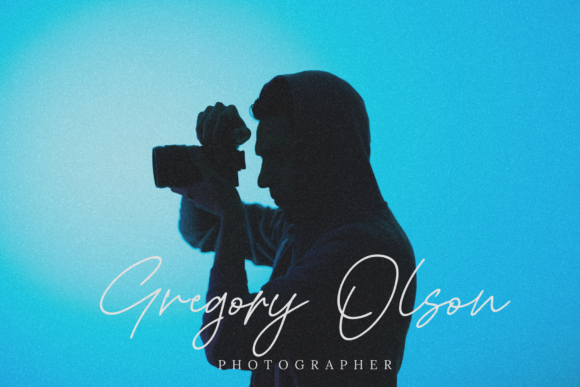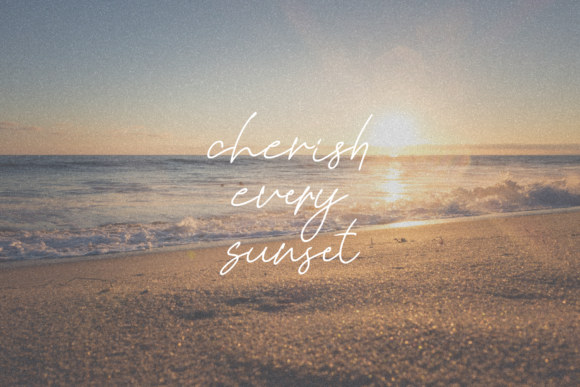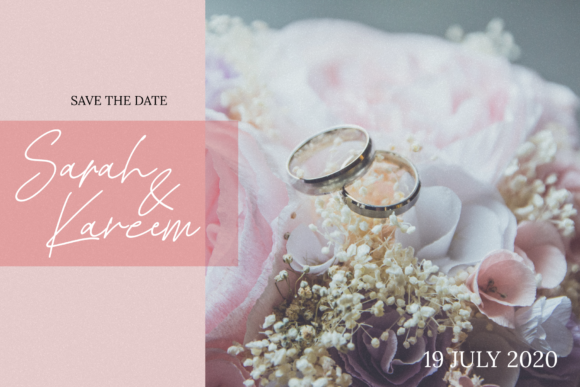
Introduction to Kadung Tresno Font
Have you ever been in the middle of a creative project, staring at a blank page, trying to come up with the perfect design element to bring it all together? You’ve tried every font, every color combination, but nothing seems to be working. That’s where the Kadung Tresno Font comes in – a simple yet authentic handwritten font that’s sure to add a cool twist to your design project.
As a designer, you know how valuable a high-quality design resource can be. A font like Kadung Tresno Font can make all the difference in elevating your work and setting it apart from the rest. With its unique, handwritten feel and transparent background, it’s the perfect addition to any creative project.
Key Features of Kadung Tresno Font
- Unique and creative script font design, ideal for various creative projects
Honest Review: Kadung Tresno Font
As a designer, I’m always on the lookout for high-quality design resources that can elevate my creative projects. The Kadung Tresno Font is a great example of a free download that delivers.
What works well is the font’s unique aesthetic, which combines traditional and modern elements to create a truly distinctive look. It’s perfect for projects that require a touch of cultural flair. ✨
However, there are some limitations to consider. ⚠️
- Not suitable for all designs: The font’s unique style may not be suitable for all types of designs, such as corporate or minimalist projects.
Overall, the Kadung Tresno Font is a solid choice for designers looking for a high-quality, free design resource. With its unique aesthetic and customization options, it’s perfect for creative projects that require a touch of personality. Just be aware of its limitations, and you’ll be good to go.